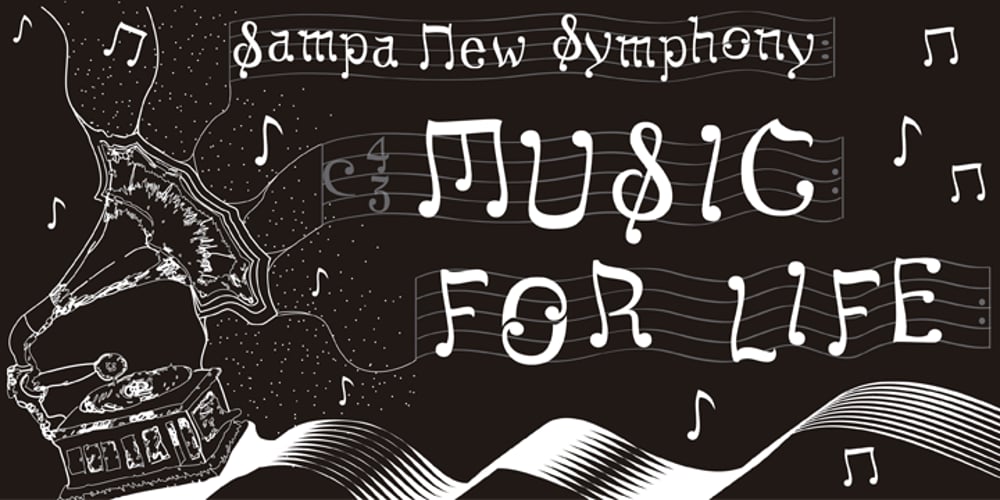
Sampa New Symphony Font Family was designed by published by Daniel Fontenele Saracho. Sampa New Symphony contains 1 styles and family package options. The typography was created from the observed similarities between some musical symbols and the letters of the alphabet. Realizing that there were not typefaces which used this language, decided to implement this idea, providing a new typographic style closer to the musical symbolism.